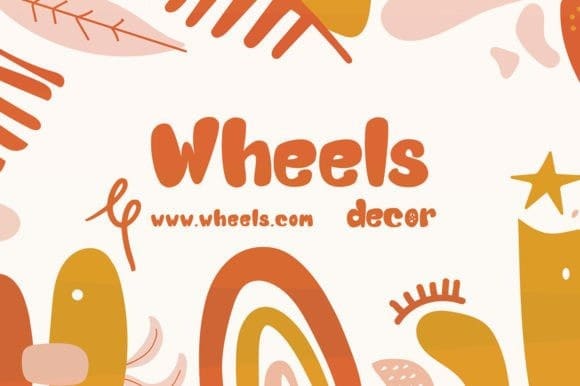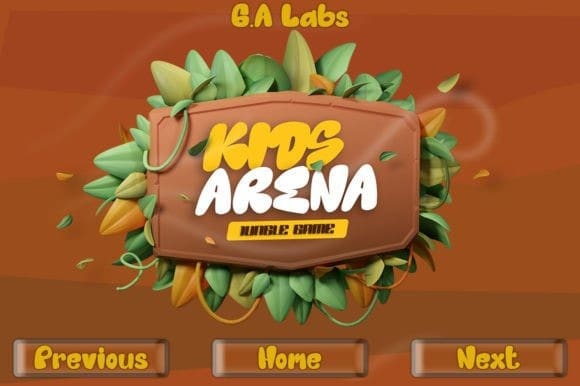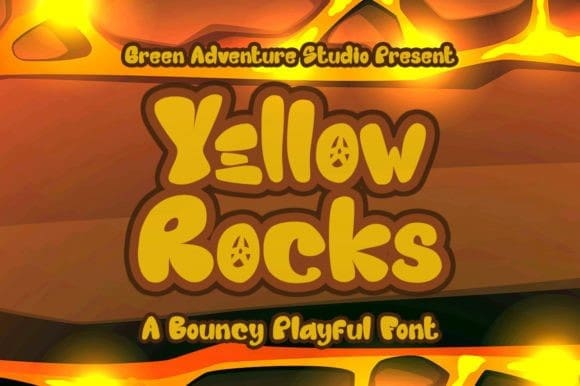
Yellow Rocks Font
Yellow Rocks Font have been designed to suit a variety of projects from urban style to classic branding with alternative characters and ligatures to completely change the look of your designs. With this font, you can create an elegant product display with a fun touch, so that it looks luxurious and valuable. perfect for brand logos, games, banners, landing pages, and much more.